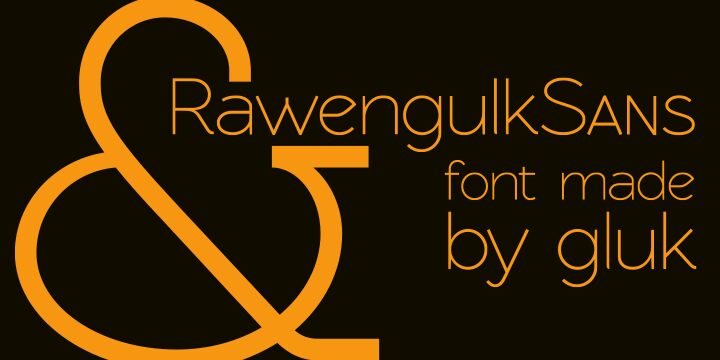
Rawengulk Sans by gluk is a free light sans serif with tall proportions and an unusually fine line. Its capitals combine broad curves with sharply pointed forms, producing a poised architectural look. Stroke widths shift subtly around rounded letters rather than staying strictly mechanical.
As a refined display voice, it suits fashion branding, gallery posters, and cultural event programs. Its slender geometry also fits magazine covers and beauty packaging, where lettering can become part of a linear graphic.